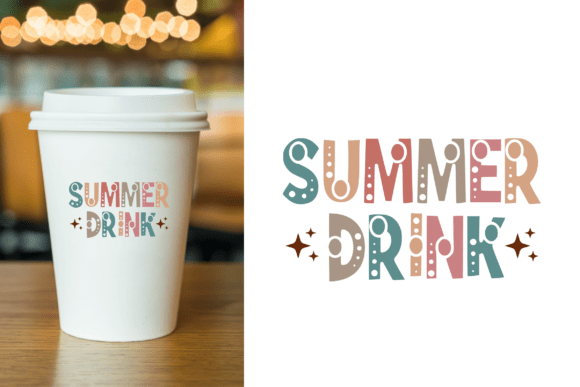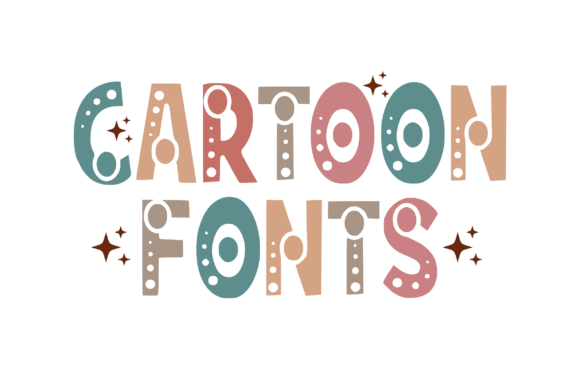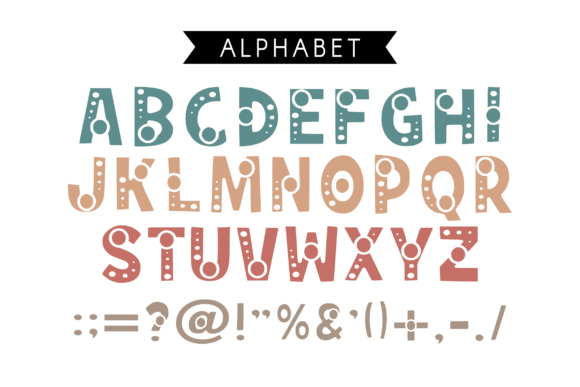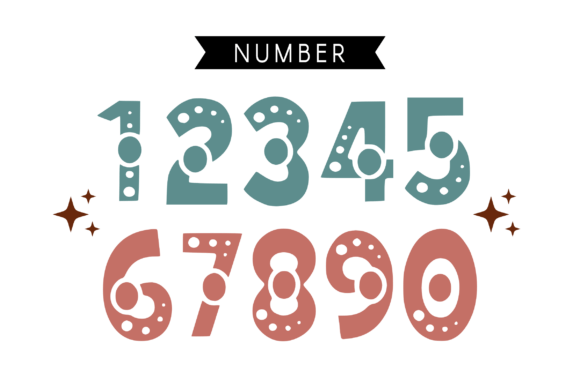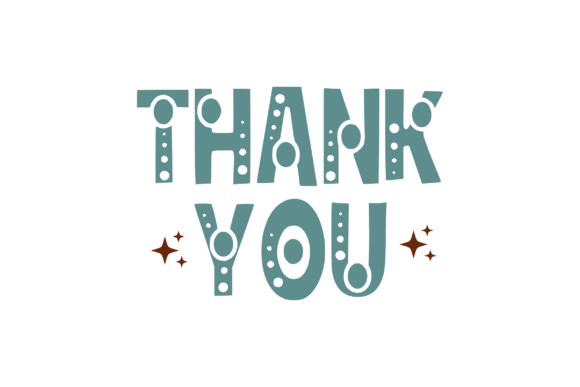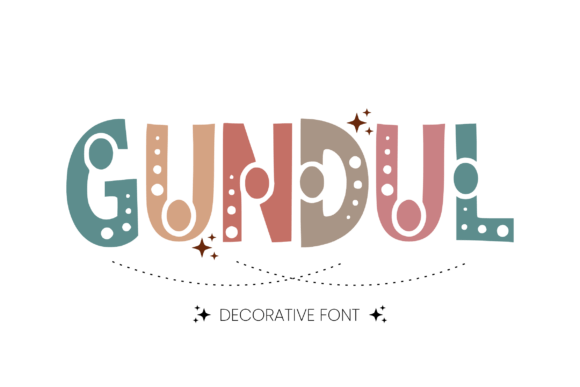
Welcome to Gundul: Your Perfect Partner for Summer Delights
Are you ready to infuse your designs with a dash of joy and elegance? Look no further than Gundul, the adorable decorative typeface that’s taking the design world by storm! With its unique and cheerful characters, Gundul is the perfect partner for all things summery and delightful. In this article, we’ll dive into the world of Gundul and explore the endless creative possibilities it offers.
What is Gundul Font?
Gundul is a decorative typeface that’s designed to bring a smile to your face. Its playful and elegant design makes it perfect for a wide range of creative projects, from comics and stickers to t-shirts, mugs, and embroidery. With Gundul, you can add a touch of whimsy and charm to your designs, making them stand out from the crowd.
Creative Possibilities with Gundul
So, what can you create with Gundul? The possibilities are endless! Here are just a few ideas to get you started:
• Captivating Comics: Use Gundul to create engaging and fun comics that will delight readers of all ages. Its playful design makes it perfect for illustrating characters, speech bubbles, and captions.
• Distinctive Stickers: Design eye-catching stickers that will make your products or packaging stand out. Gundul’s unique characters will add a touch of personality to your stickers and make them hard to resist.
• Standout T-Shirts: Create custom t-shirts that will make a statement. Gundul’s elegant design makes it perfect for printing on apparel, and its playful characters will add a touch of whimsy to your designs.
• Memorable Mugs: Design personalized mugs that will make your friends and family smile. Gundul’s cheerful characters will add a touch of warmth and personality to your mug designs.
• Enterprising Embroidery: Use Gundul to create intricate and beautiful embroidery designs. Its elegant design makes it perfect for stitching on clothing, accessories, or home decor items.
Why Choose Gundul Font?
So, why choose Gundul for your design projects? Here are just a few reasons:
• Unique and Cheerful Characters: Gundul’s characters are designed to bring a smile to your face. Its unique and cheerful design makes it perfect for creating designs that will stand out from the crowd.
• Elegant and Playful Design: Gundul’s design is both elegant and playful, making it perfect for a wide range of creative projects.
Tips for Using Gundul Font
Here are a few tips for using Gundul in your design projects:
• Experiment with Different Sizes: Gundul looks great in a variety of sizes, from small to large. Experiment with different sizes to find the one that works best for your design.
• Combine with Other Fonts: Gundul can be combined with other fonts to create interesting and unique designs. Try pairing it with a bold font for a striking contrast.
• Use in Digital and Print Designs: Gundul can be used in both digital and print designs. Use it to create eye-catching graphics for social media, or print it on t-shirts, mugs, or other products.
In conclusion, Gundul is a versatile and charming font that’s perfect for designers and crafters looking to add a touch of joy and elegance to their projects. With its unique and cheerful characters, elegant and playful design, and endless creative possibilities, Gundul is the perfect partner for all things summery and delightful. So why wait? Dive into the world of Gundul today and let your creativity shine!